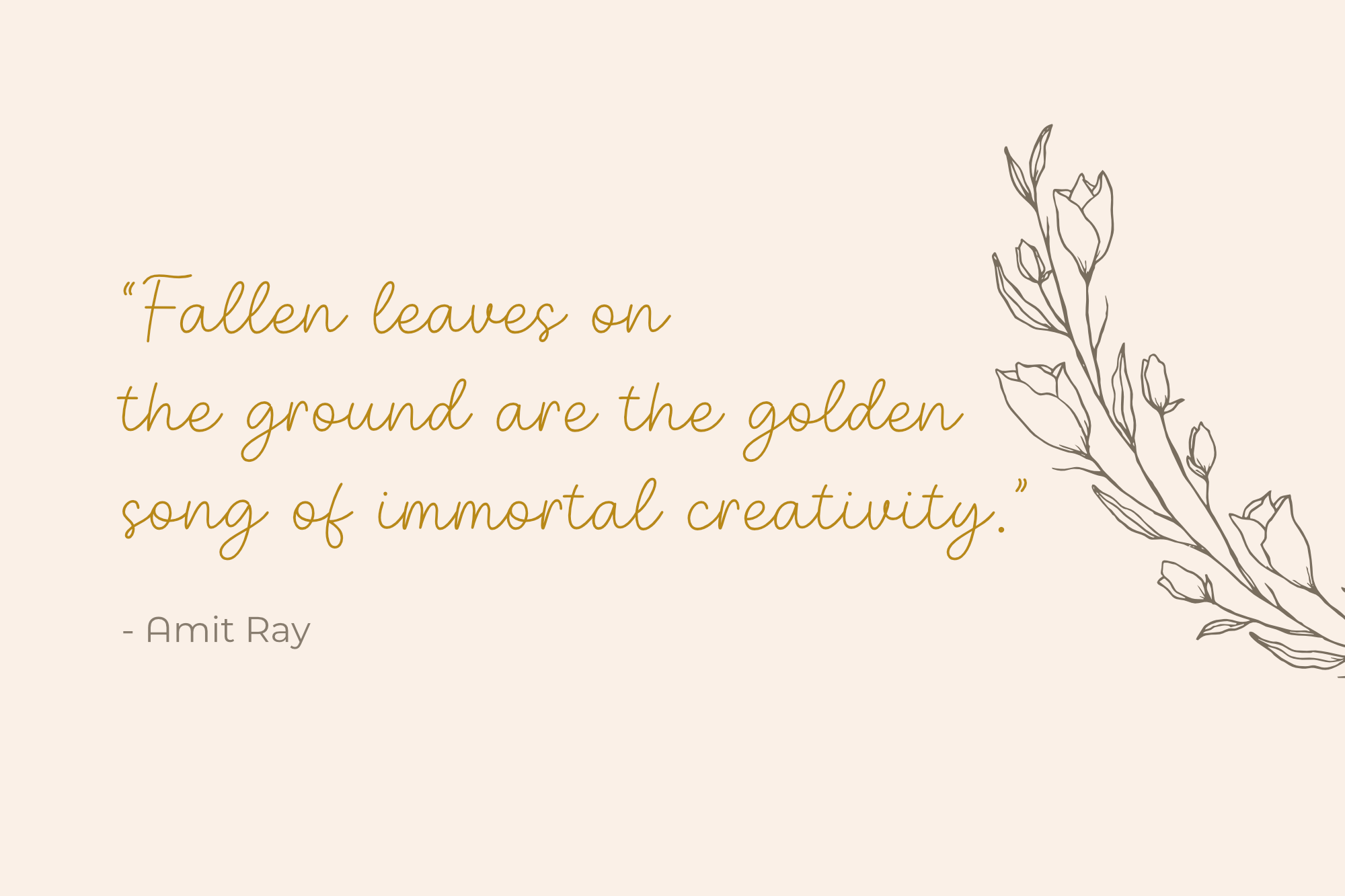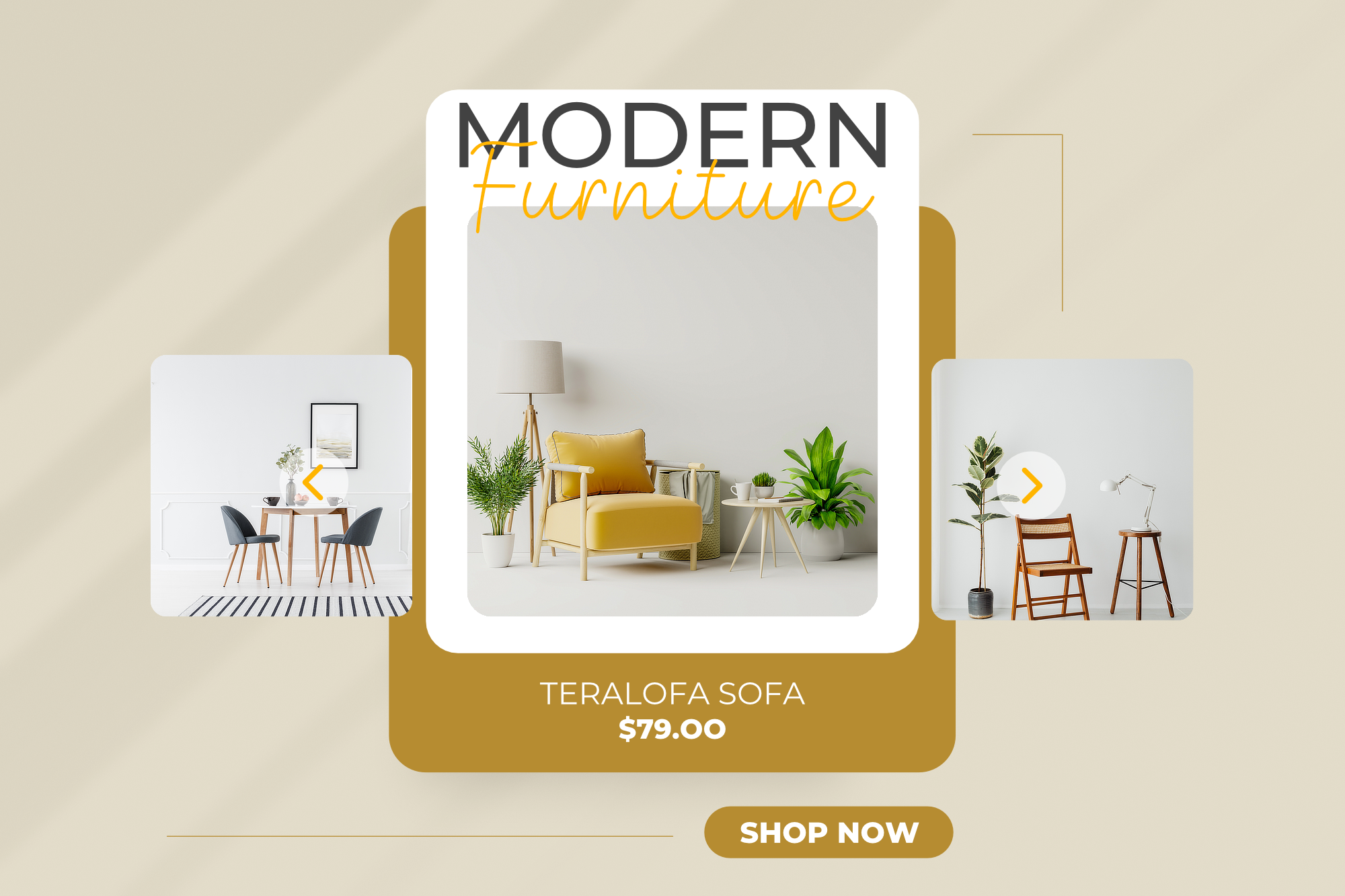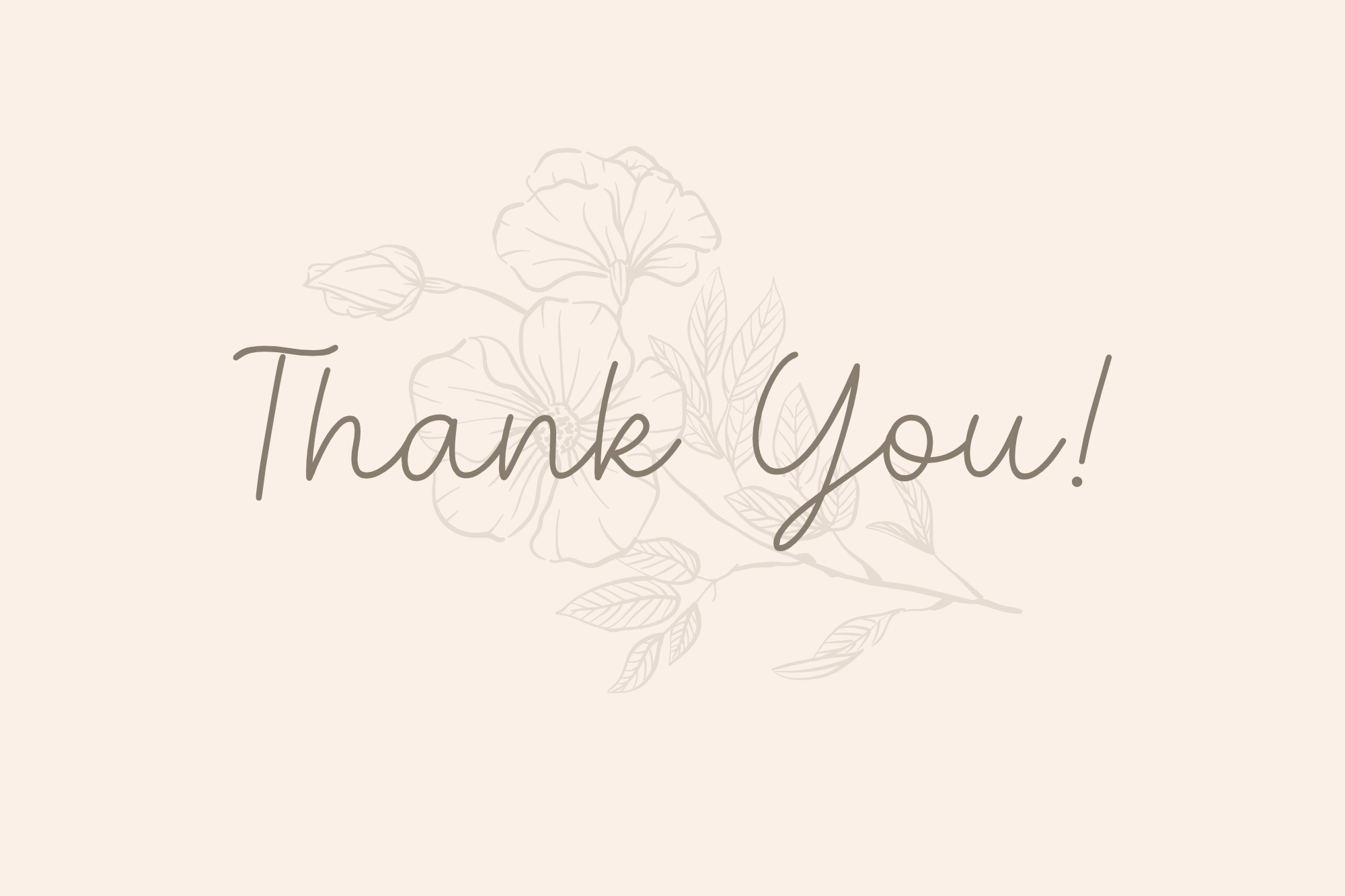
Leafery Handwritten Font
This is a sweet handwritten font that is made with great care in order to produce the expected outcomes. It is perfect for any branding project such as logos, t-shirt printing, creative products, and more. It will look extraordinary in a variety of contexts.